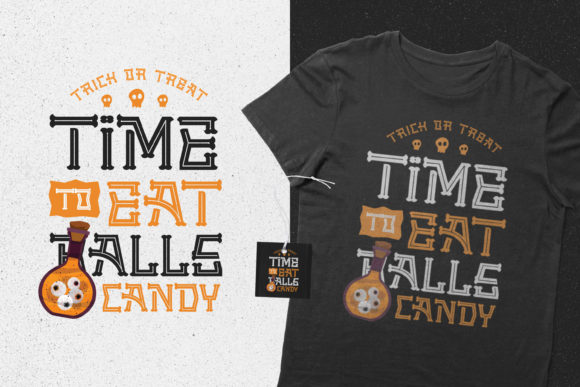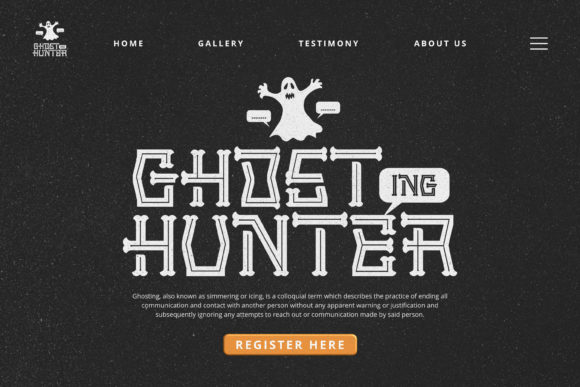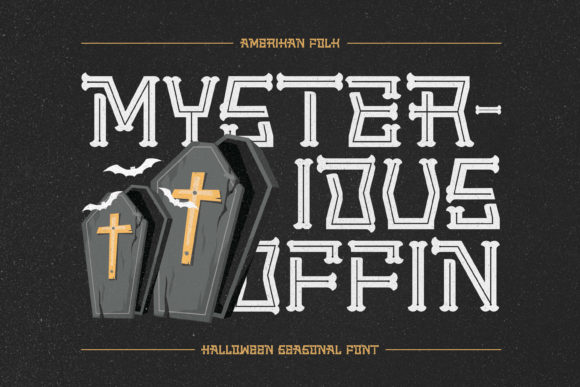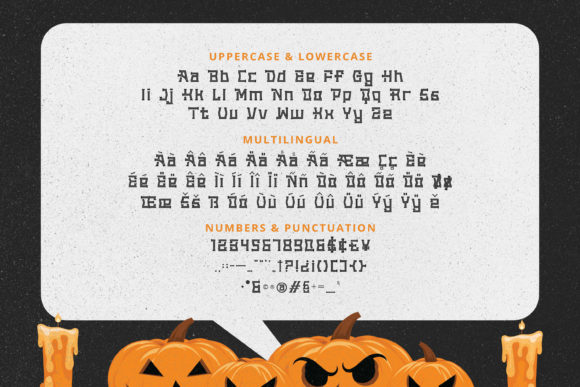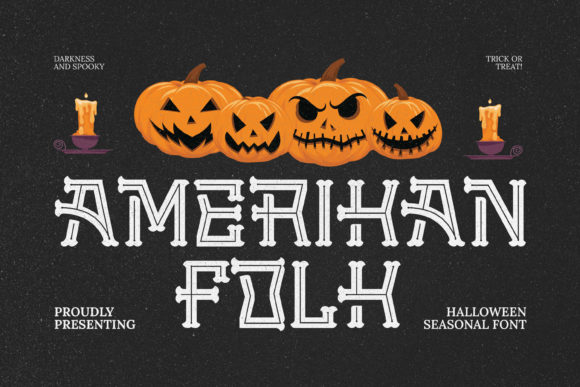
Introducing Amerikan Folk: The Ultimate Display Font for Spooky Season
Are you looking for a font that embodies the eerie and mysterious spirit of Halloween? Look no further than Amerikan Folk, a squared-lettered, robotic, and spooky display font that’s perfect for any Halloween-related project or crafty idea. With its unique and captivating design, Amerikan Folk is sure to add a touch of macabre magic to your creations.
What is Amerikan Folk?
Amerikan Folk is a display font that’s specifically designed to evoke the feeling of a haunted, industrial landscape. Its squared letters and robotic aesthetic give it a mechanical, almost futuristic feel that’s both fascinating and unsettling. The font’s spooky vibe makes it an ideal choice for Halloween-themed projects, such as party invitations, decorations, and costumes.
Key Features of Amerikan Folk
- Squared-lettered design: Amerikan Folk’s letters are blocky and geometric, giving it a sturdy, industrial feel.
- Robotic aesthetic: The font’s mechanical look makes it perfect for sci-fi and futuristic-themed projects.
- Spooky vibe: Amerikan Folk’s eerie atmosphere is sure to add a touch of Halloween magic to your creations.
- Highly versatile: The font can be used for a wide range of projects, from party invitations to DIY crafts.
Perfect for Halloween Projects
Amerikan Folk is specifically designed with Halloween in mind. Its spooky aesthetic makes it perfect for:
- Party invitations: Create eye-catching invitations that set the tone for a spooktacular celebration.
- Decorations: Use Amerikan Folk to create creepy signs, banners, and other decorations that will add a touch of eerie elegance to your Halloween party.
- Costume design: Use the font to create custom t-shirts, hoodies, and other costume pieces that will make you stand out from the crowd.
- Crafts: Amerikan Folk is perfect for DIY crafts, such as pumpkin carvings, Halloween cards, and other spooky creations.
Tips for Using Amerikan Folk
To get the most out of Amerikan Folk, here are a few tips:
- Experiment with different colors: Try pairing Amerikan Folk with bold, bright colors to create a striking contrast.
- Play with font sizes: Use Amerikan Folk in a variety of font sizes to create visual interest and hierarchy.
- Combine with other fonts: Pair Amerikan Folk with other fonts to create a unique and eye-catching typography.
Amerikan Folk is a unique and captivating display font that’s perfect for any Halloween-related project or crafty idea. Its squared-lettered, robotic, and spooky design makes it an ideal choice for designers and crafters looking to add a touch of macabre magic to their creations. With its highly versatile design and endless possibilities, Amerikan Folk is sure to become a go-to font for anyone looking to create spooky and eye-catching projects.